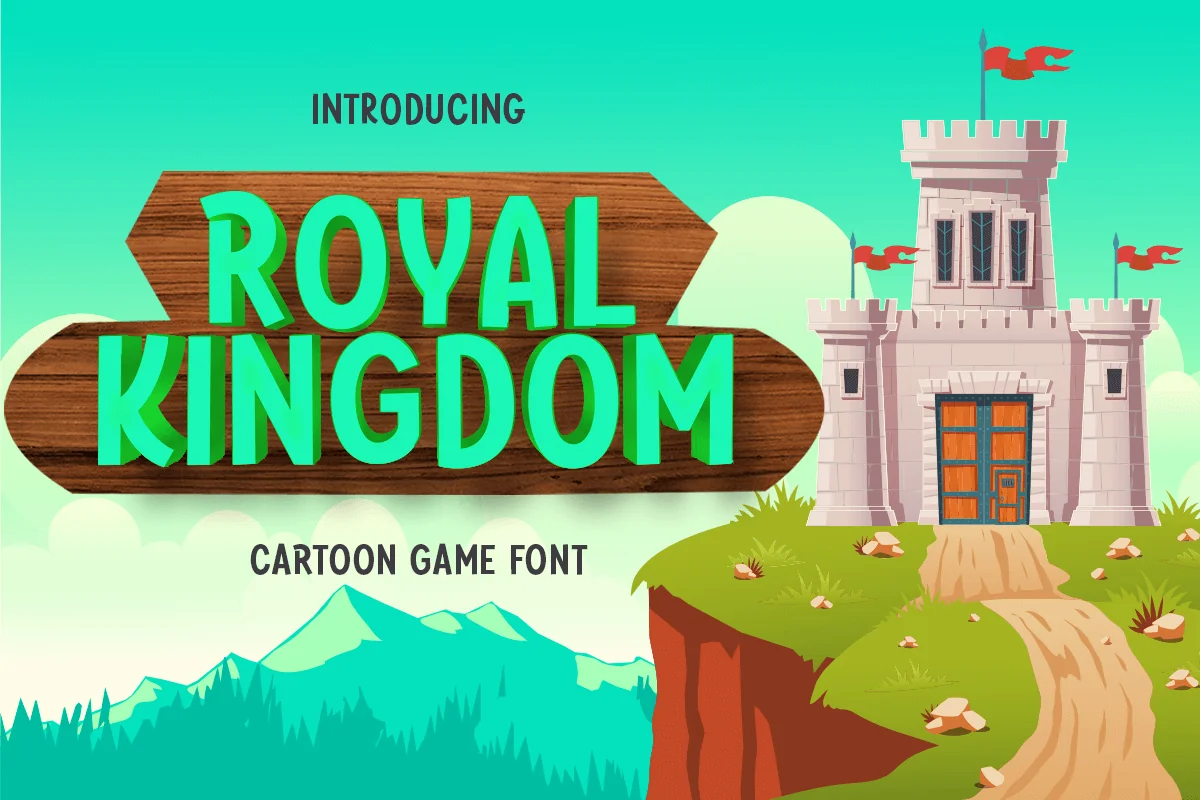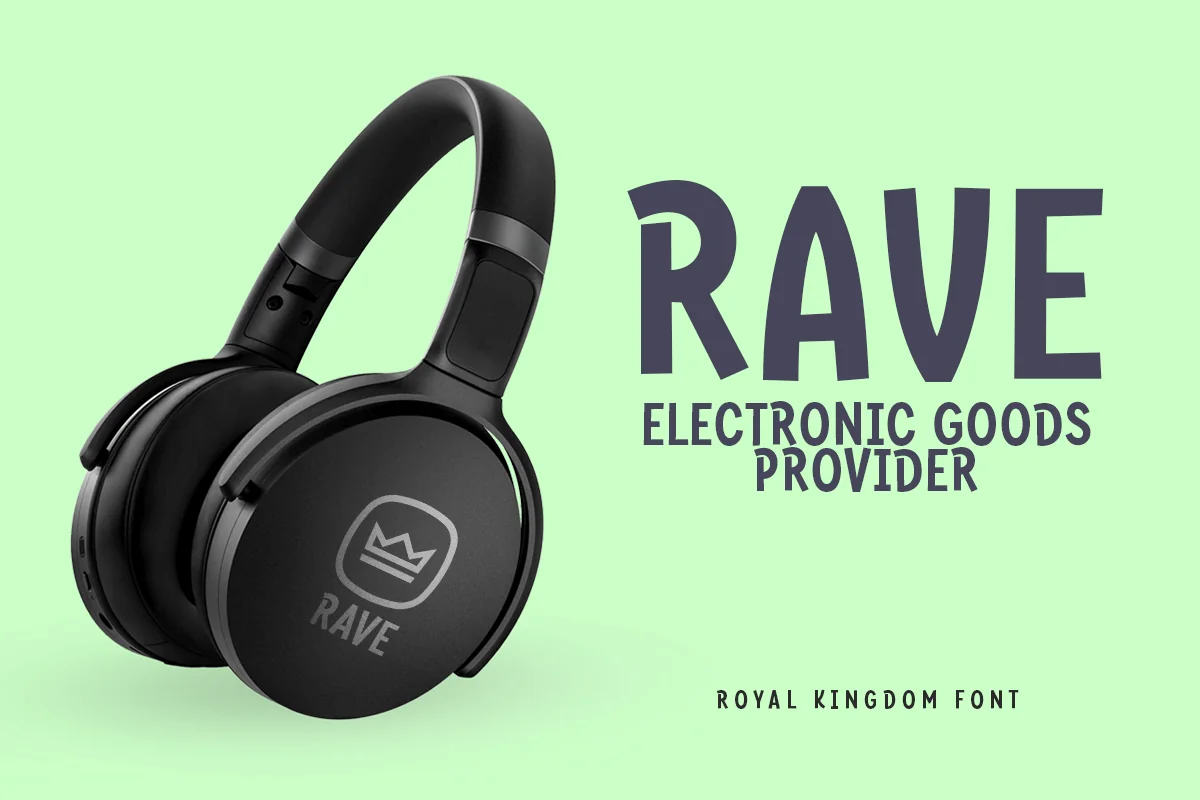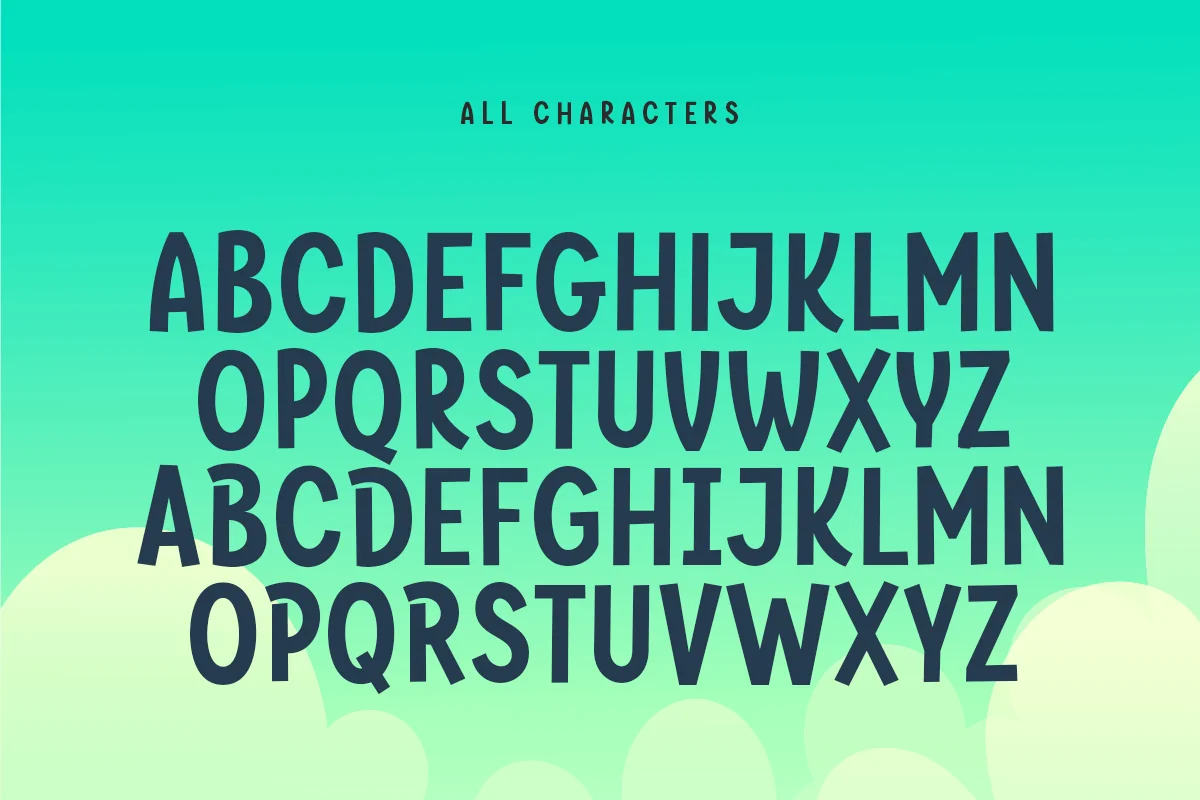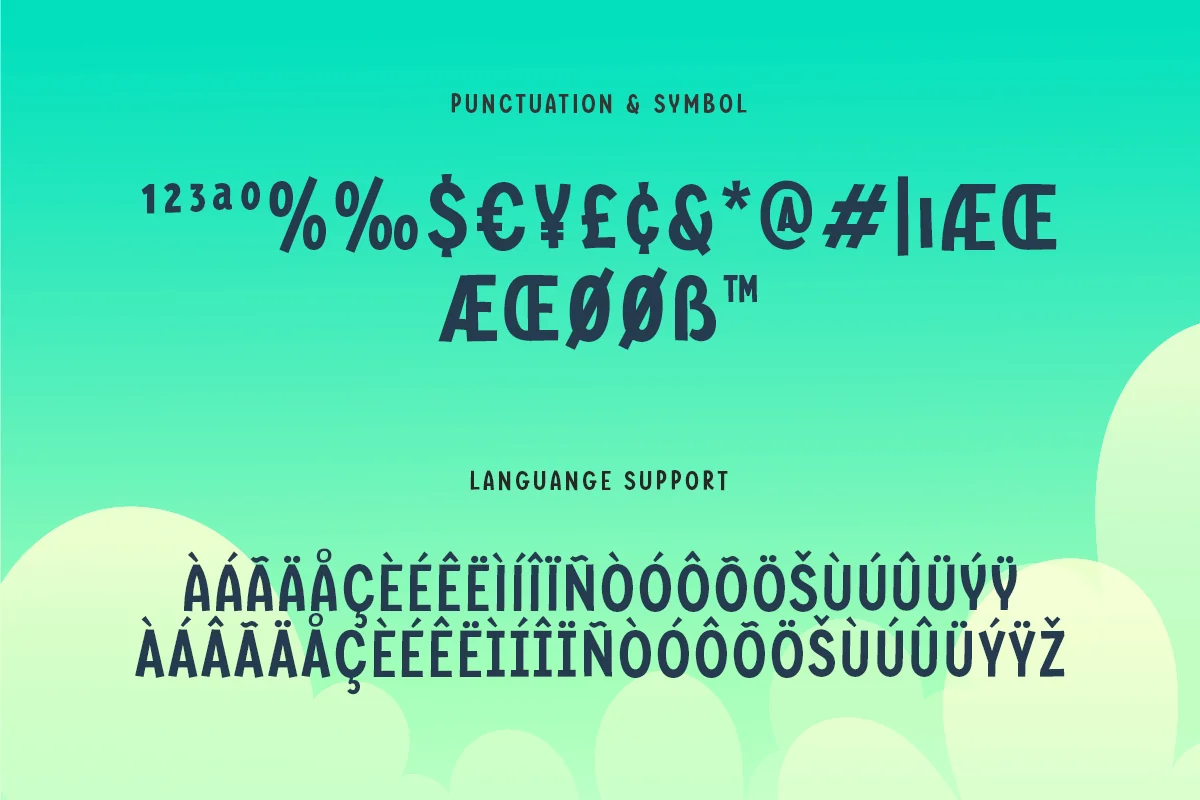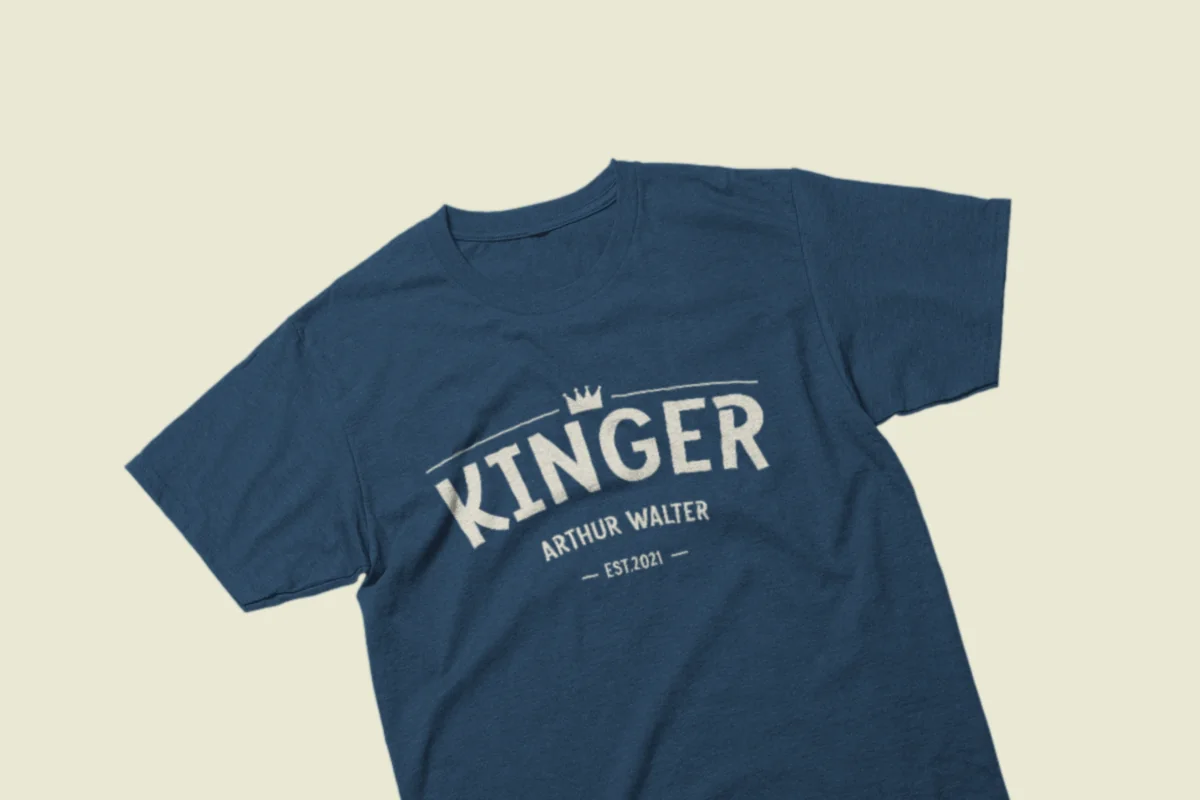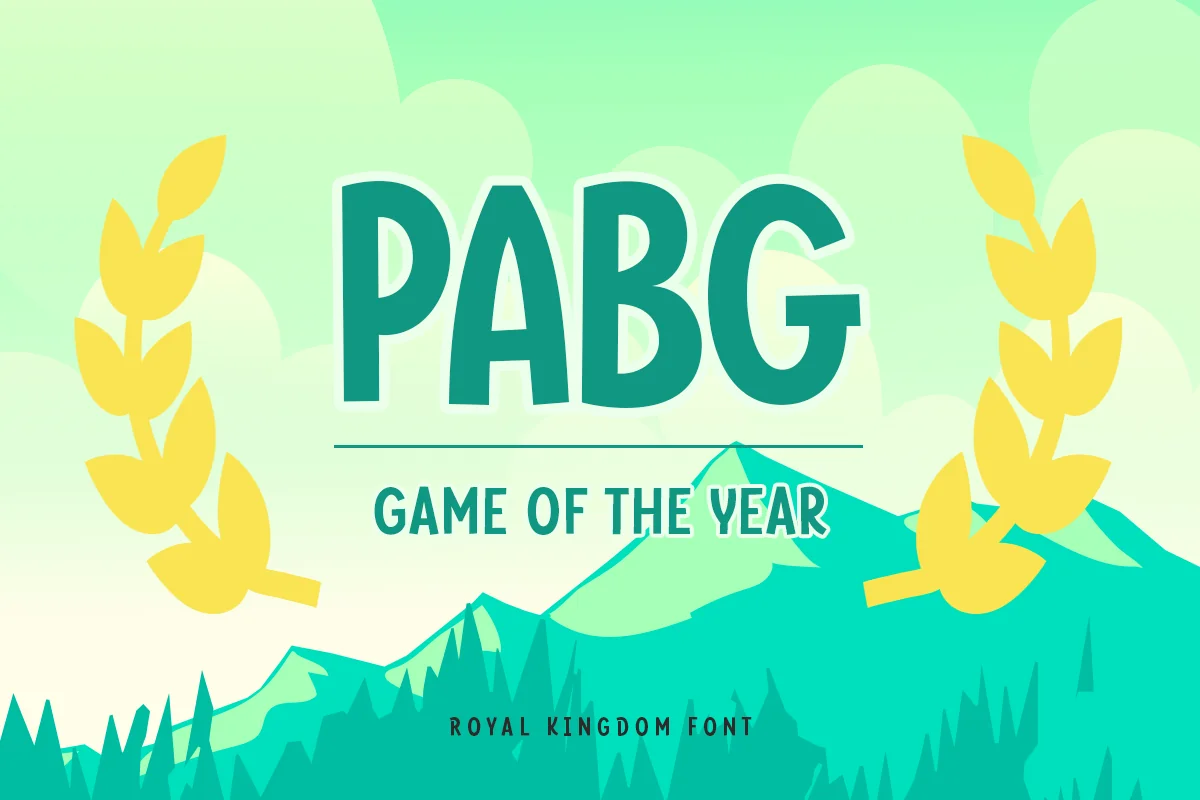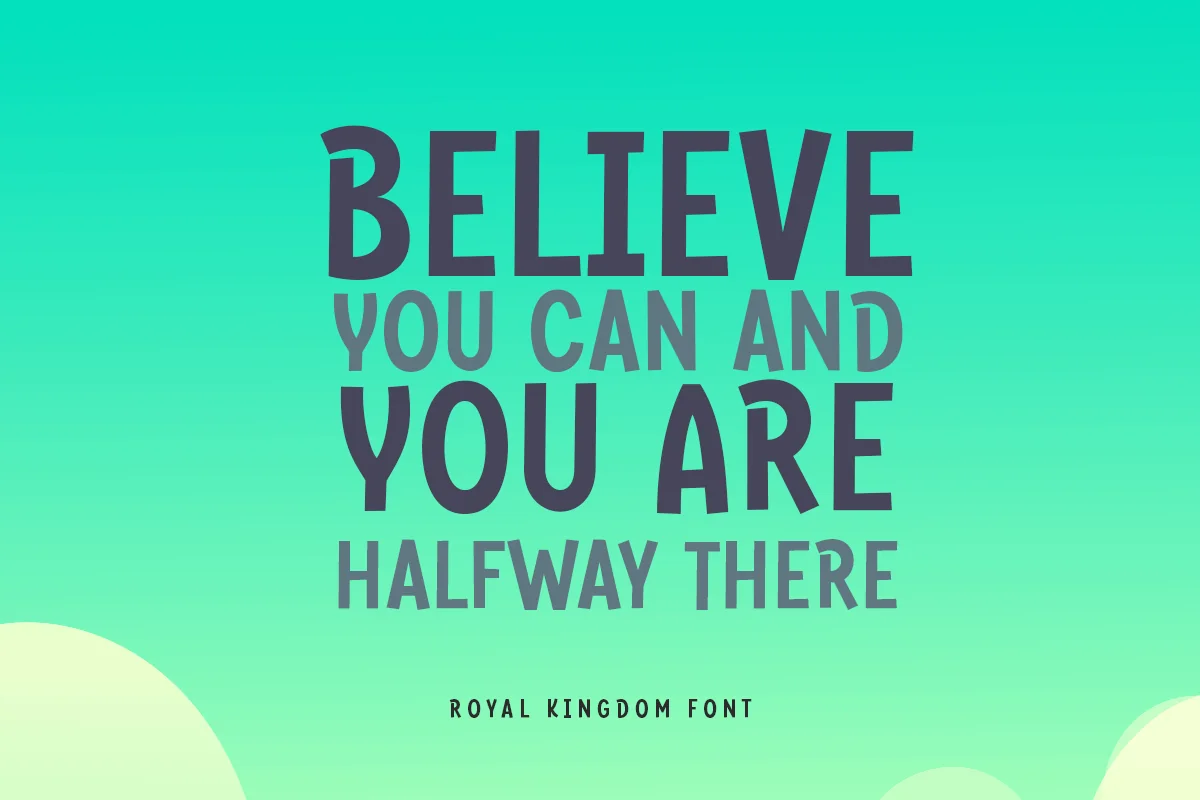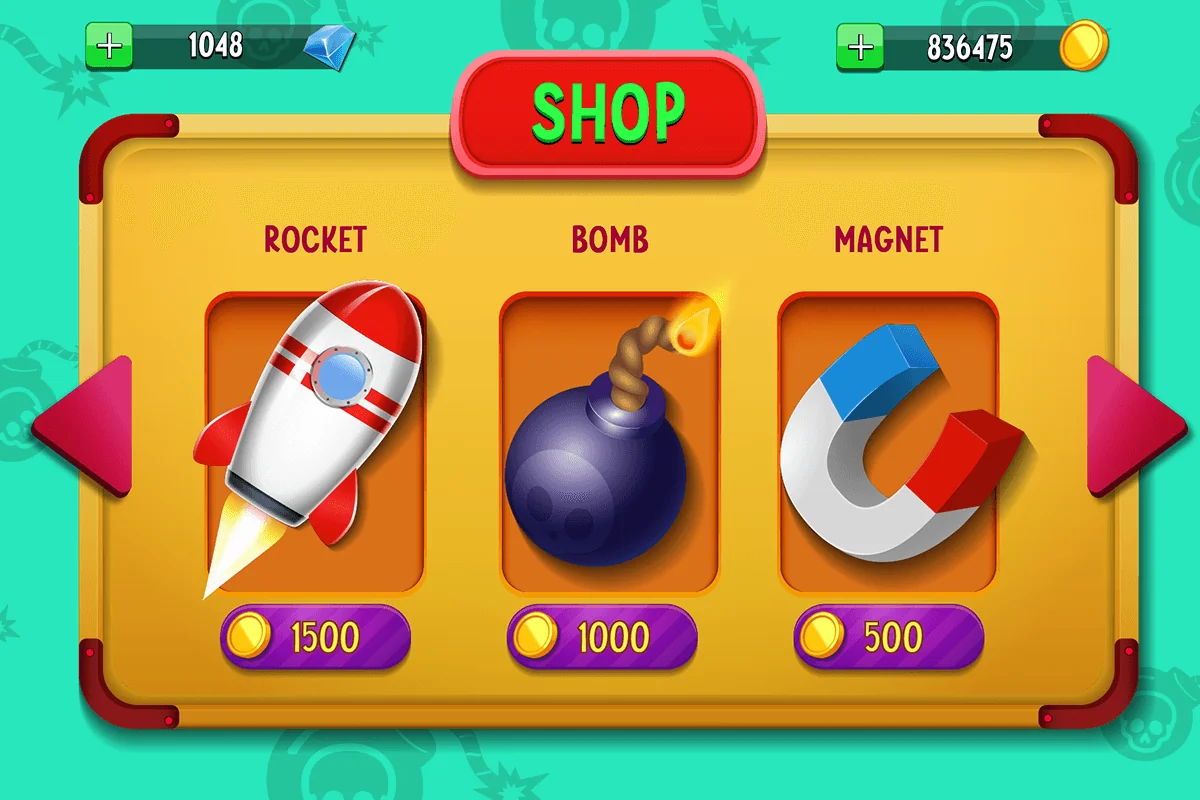
Royal Kingdom – Cartoon Game Font
Do you need a font that’s perfect for Game UI projects? Royal Kingdom is the Best One
Royal Kingdom is a Cartoon Game Font, that’s Perfect for Designer are Needs to make a Game UI Design, Cartoon Sketch, or anything with fun feels This font specially crafted for your design projects such as Game UI, Kids banner, poster, flyer, website design, product packaging, merchandise, and so many more with easy to use but standing out results are so playful.
Enjoy to Design any your needs with stand out, joy, and fun feels.
- All Characters (from A to Z All-Caps)
- Numbers and Punctuation